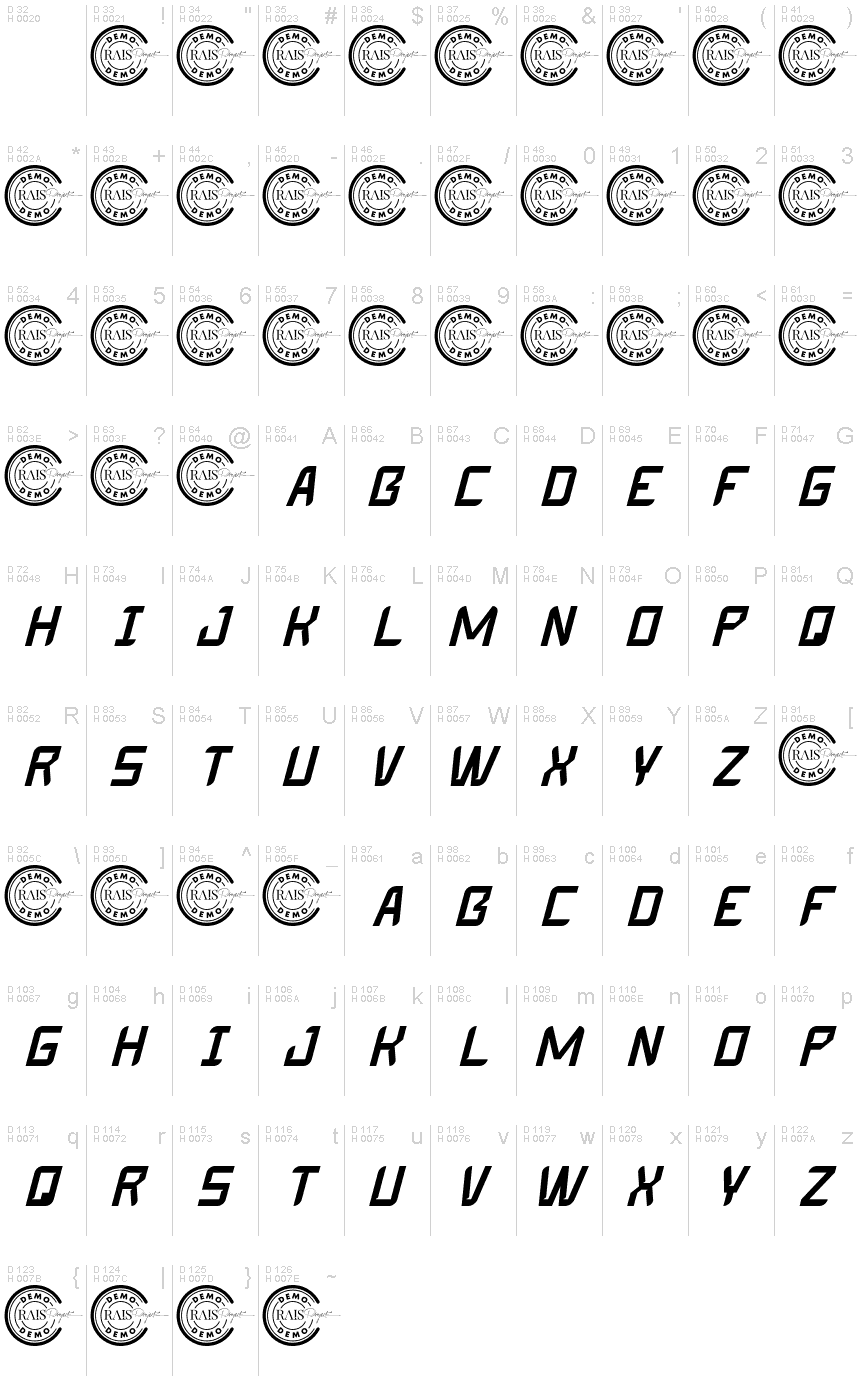
Hotfast Demo Italic
Hotfast Italic, the latest addition to the Hotfast font family, designed by RaisProject. This display font is perfect for projects that require a modern and futuristic feel. Its techno style adds a unique touch to any design, making it suitable for branding, advertising materials or web designs. The italicized form of Hotfast creates a sense of movement and dynamism, making it perfect for headers and titles in magazines or posters. With its sleek lines and sharp edges, Hotfast Italic is sure to make your project stand out from the rest.